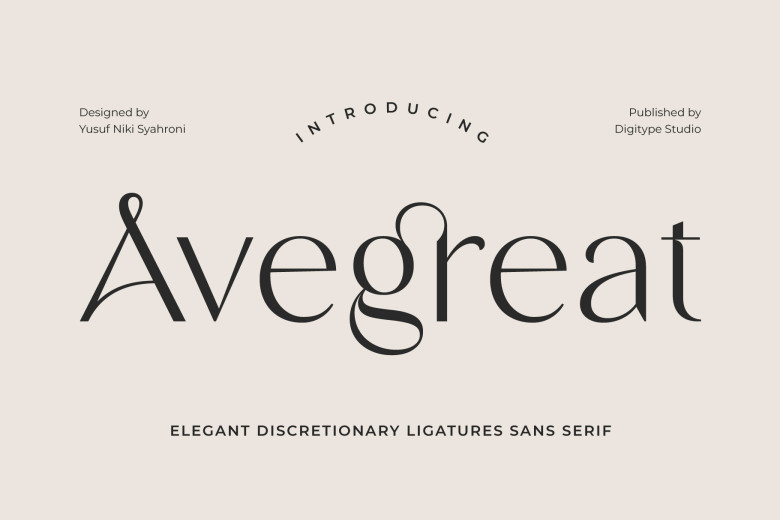
Avegreat Font
Avegreat is an attractive, modern sans-serif font featuring an appealing and visually attractive design, enhanced with optional ligatures. Perfect for use across various formal formats ranging from wedding invitations and logos packaging magazines, fashion, makeup books invitations novels, labels, stationery or any other advertising purposes – Avegreat stands out in every respect.
Avegreat Sans Serif Font